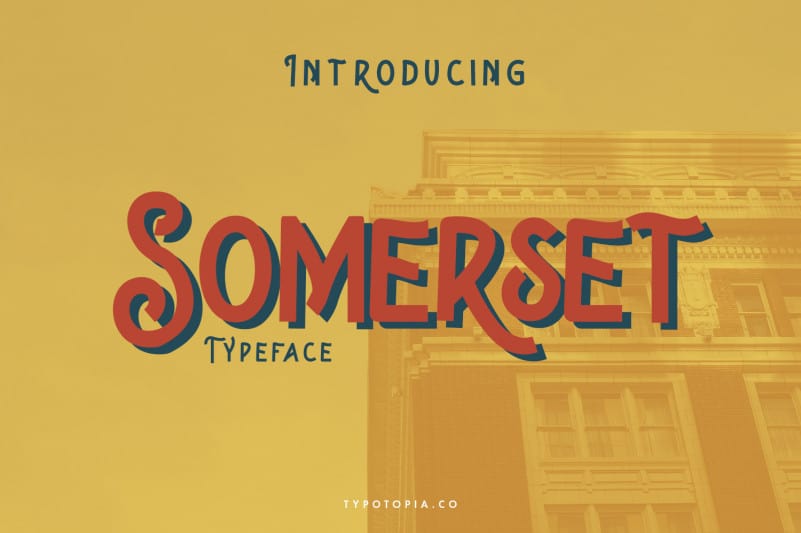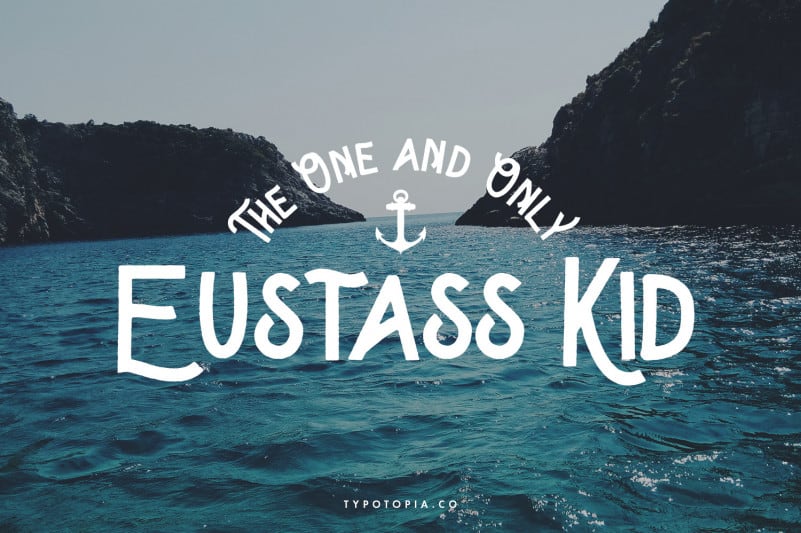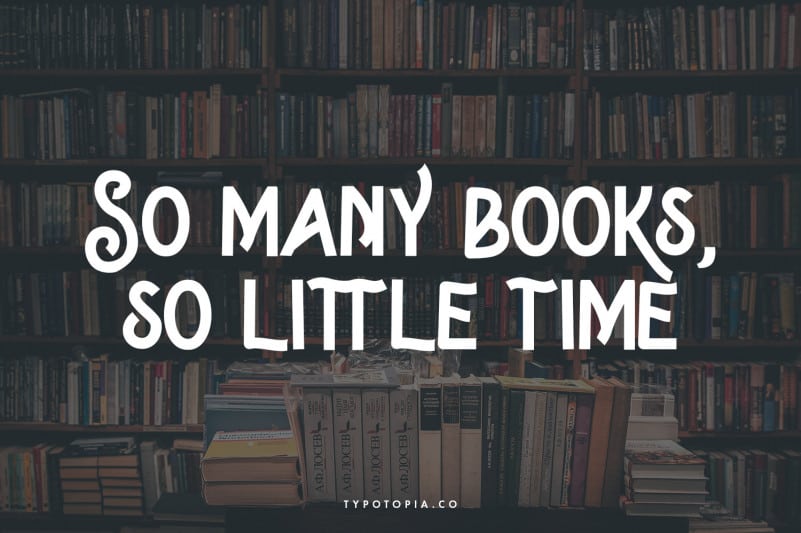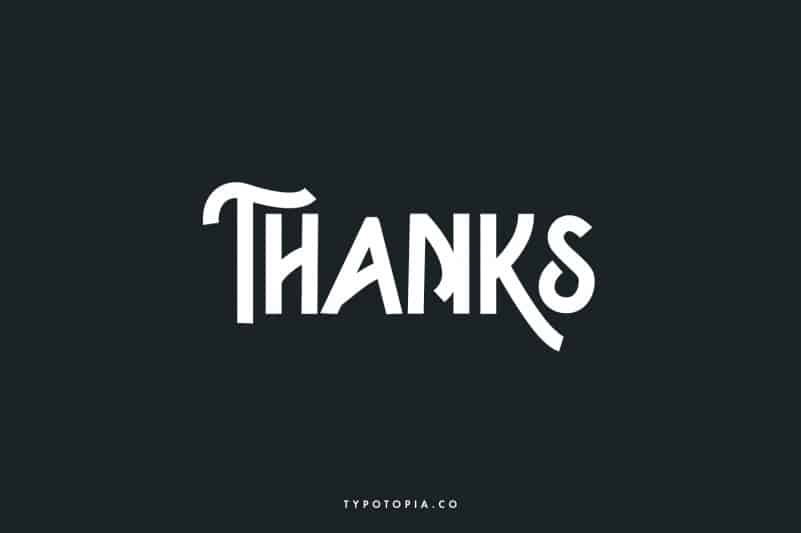
Somerset Display Font
Somerset Display Font come with modern vintage look design styles, available 4 Style typeface. These lovely fonts would be perfect to combine in your design. Suitable for digital lettering, logo, t-shirt, print, business cards, branding materials, quotes, nature photography, etc, made with hand painted and carefully crafted.